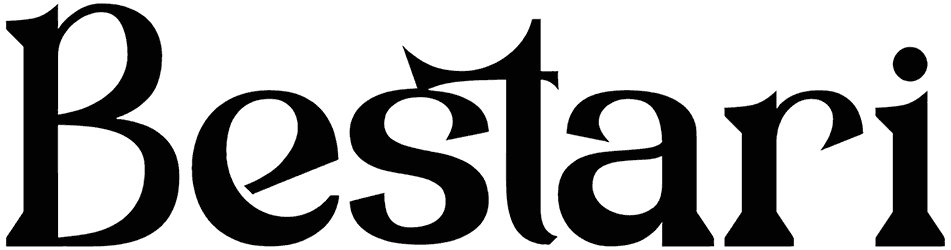
Bestari Font
Bestari is a perfect combination of feminine elegance and masculine power that can bring you to the desired result without stopping. This serif font has a clear difference in the edges from other similar options.
For this reason, it has been able to offer a new look to this old part of the font world. So to add a magical feel of the classic world to your posters, book covers, website, and online ads, save this font to your collection.